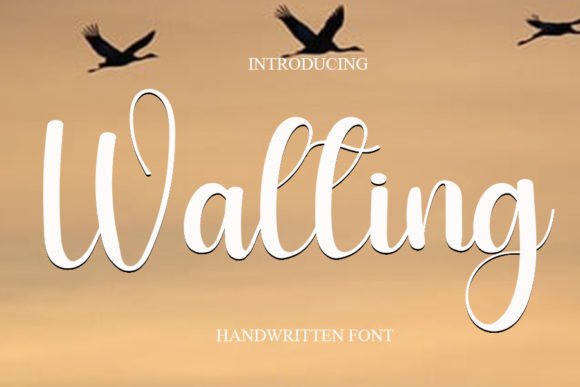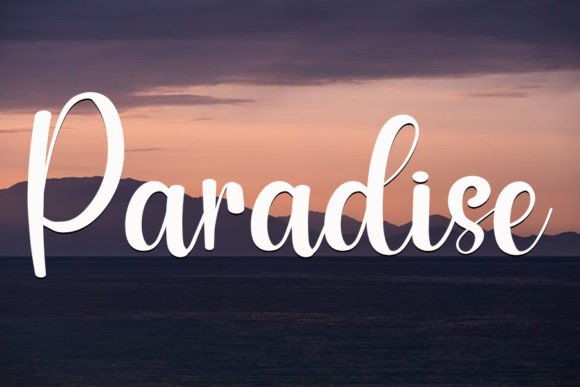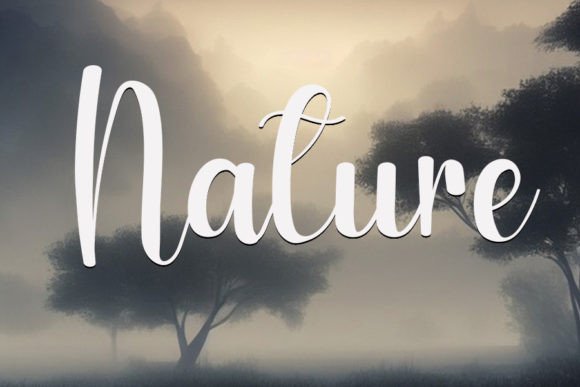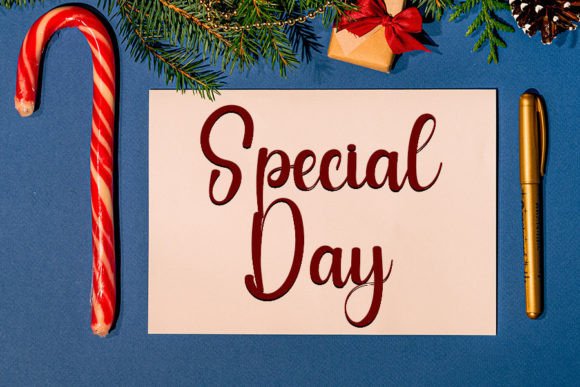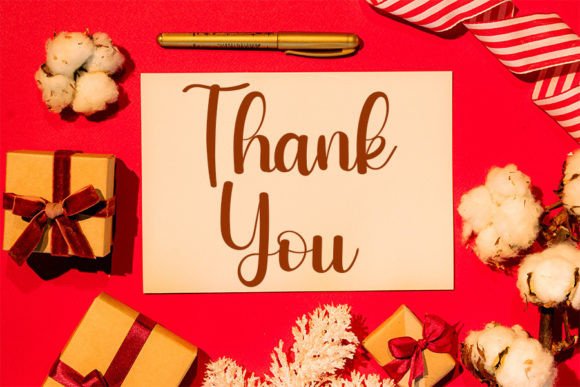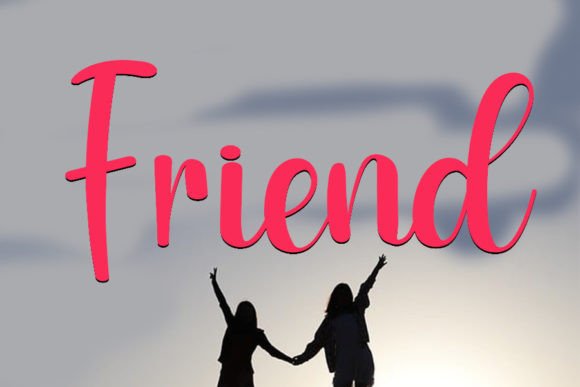
Walting Font
The Walting Font Download is a cool handwritten script with a modern look and spotless form. Inspired by classic calligraphy, it balances thin and thick strokes for a clean, versatile style. Because of its elegant curves and smooth flow, this font is perfect for invitations, posters, branding, and digital projects.
A Cool Script with Modern Balance
The Walting script font combines classic handwritten charm with a fresh design. As a result, it feels timeless and stylish. Furthermore, it adapts well to small stationery and large display projects, which makes it flexible for many creative uses.
Handwritten fonts always add a personal feel to designs. The Walting Font is excellent for wedding invitations, birthday cards, thank you notes, and seasonal greetings. Because of its balanced strokes, each design feels polished and meaningful. In addition, it makes personal stationery look elegant and memorable.
Branding and Logo Design with Walting Font
Typography builds a brand’s personality. The Walting handwritten font is a strong choice for boutique logos, product packaging, and marketing campaigns. Its modern handwritten flow gives businesses a professional yet approachable image. Therefore, it is ideal for brands that want style and trust together.
Posters, Titles, and Creative Displays
The Walting Font Download is also perfect for posters, banners, book covers, and magazines. It stays clear in all sizes, while its handwritten curves add sophistication. Consequently, it is a reliable choice for designers who want both style and legibility.
In the digital world, fonts must be bold yet easy to read. The Walting typeface integrates seamlessly into Instagram graphics, YouTube thumbnails, Pinterest boards, and blogs. Because of its stylish design, it ensures your online projects look engaging and professional.
Why Designers Choose Walting Typeface
Designers appreciate fonts that balance usability with beauty. The Walting handwritten script keeps its cool modern look while staying easy to read. This makes it a dependable option for both personal crafts and professional design. Moreover, its timeless handwritten rhythm ensures it will always remain stylish.
Add Stylish Elegance to Your Projects Today